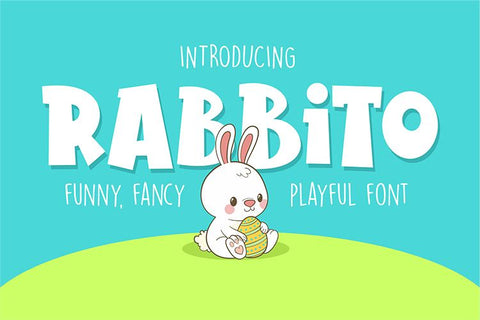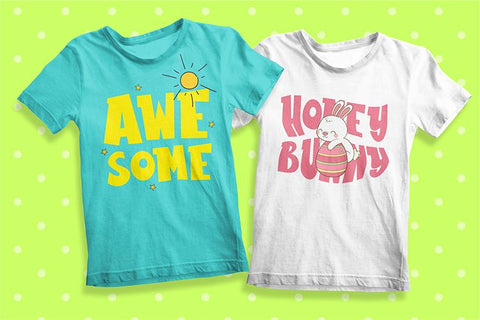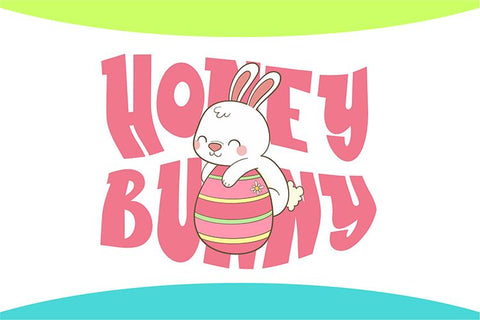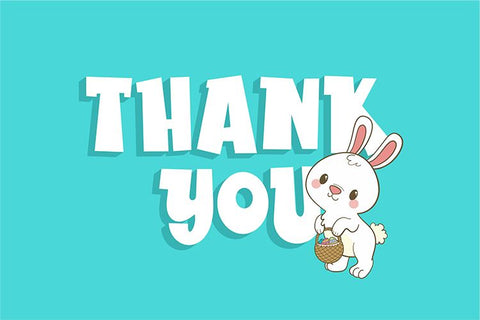
Rabbito - Playful Display Font
The Rabbito is funny, fancy and playful display font inspired by the cuteness of the rabbit.
You can use this font for a logo, kids clothing, birthday invitation, poster, friendly design, fun design, book cover, adventure poster, outbound poster, and many many many others.